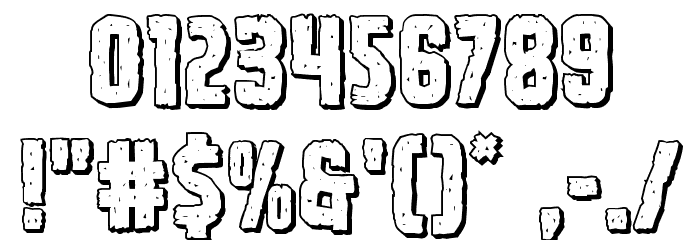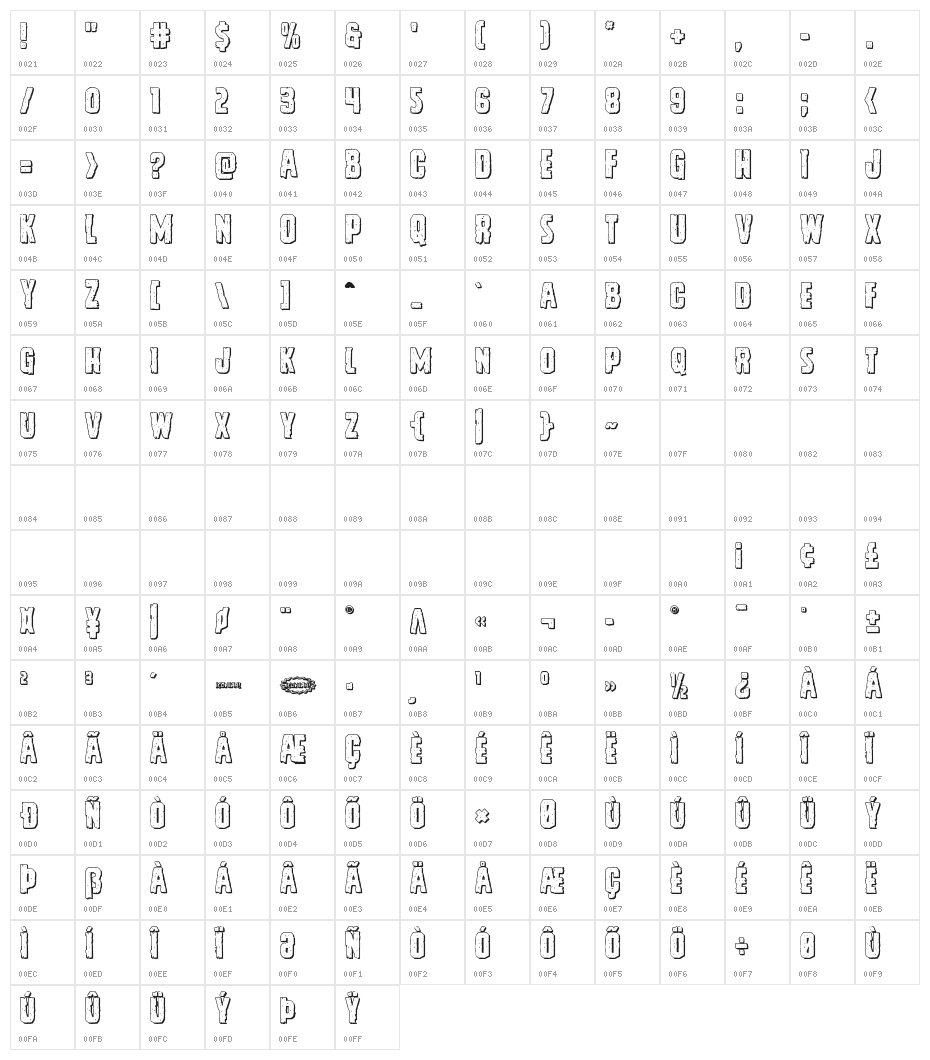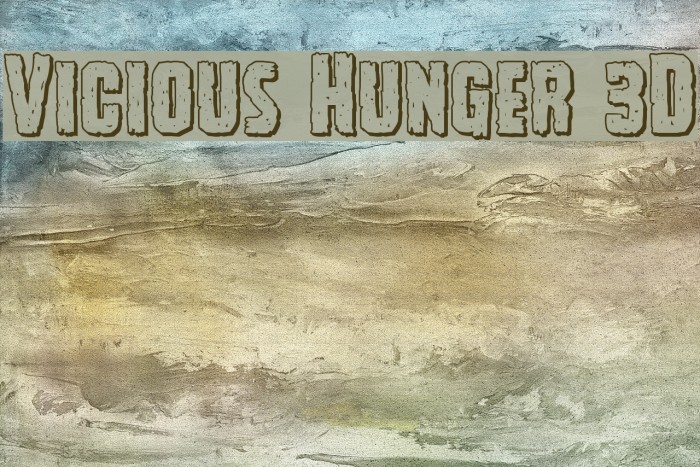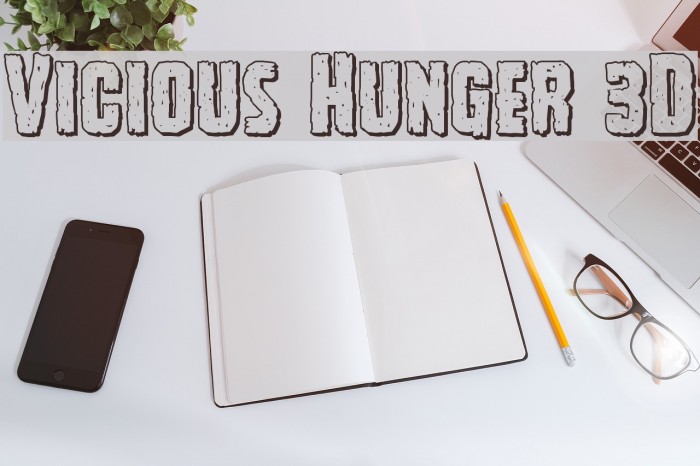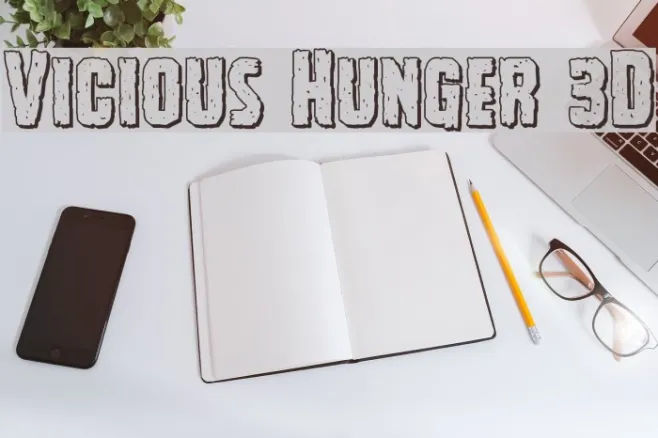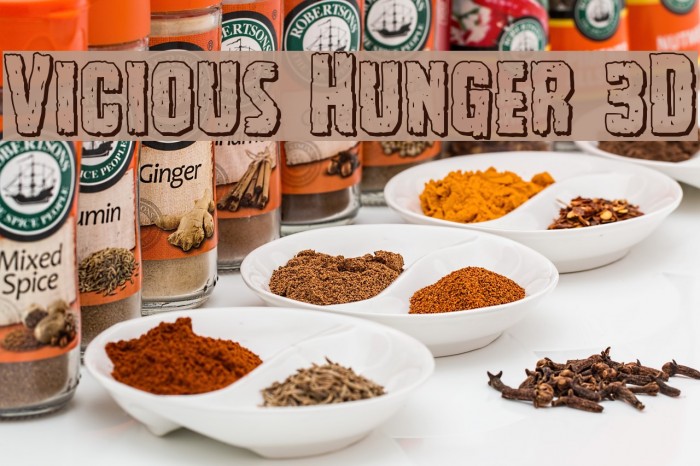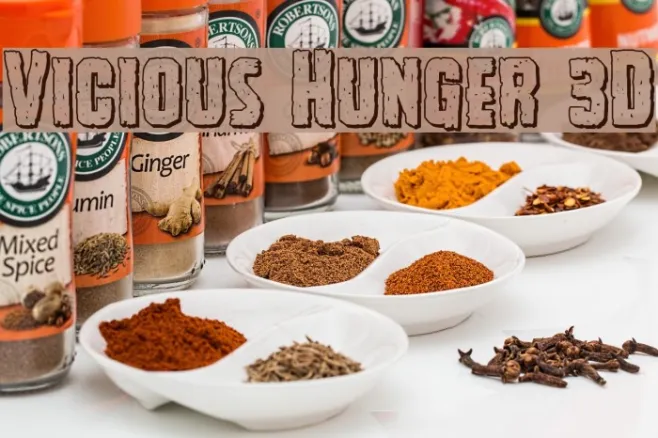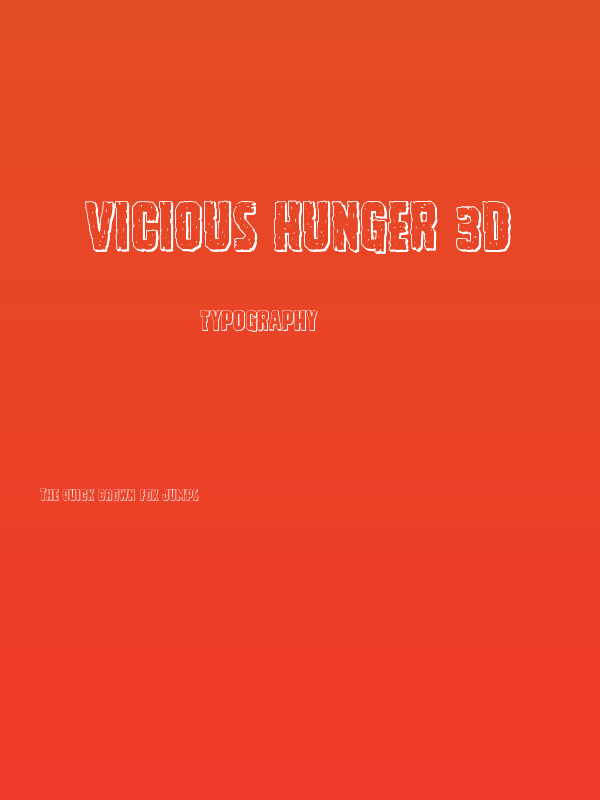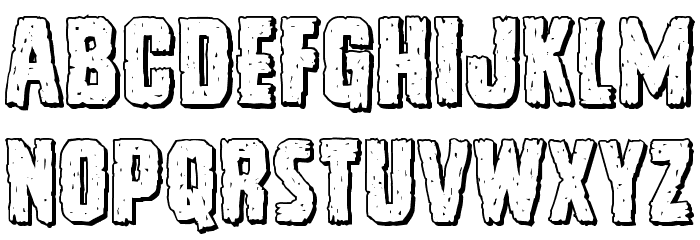
Vicious Hunger 3D Font
Vicious Hunger 3D Description
This font features a bold, rugged design with a distressed, textured appearance that gives it a gritty, worn look. The characters are blocky and substantial, with irregular edges that suggest a hand-drawn or carved style. The uppercase and lowercase letters maintain a consistent weight and style, creating a cohesive and impactful visual presence. The numbers and special characters follow the same design principles, ensuring uniformity across all glyphs. This font's unique style makes it stand out, perfect for projects requiring a bold and edgy aesthetic.
| Proposed Projects | Ideal for posters, album covers, video game titles, and branding that requires a bold, edgy look. |